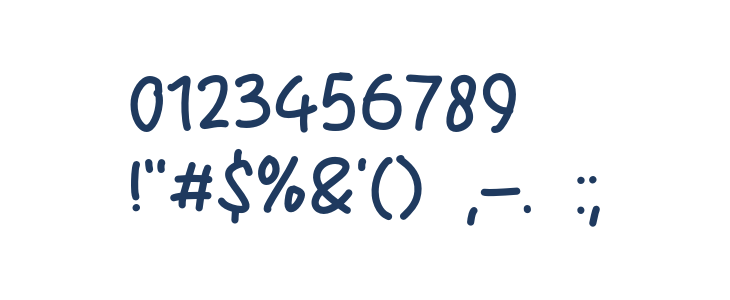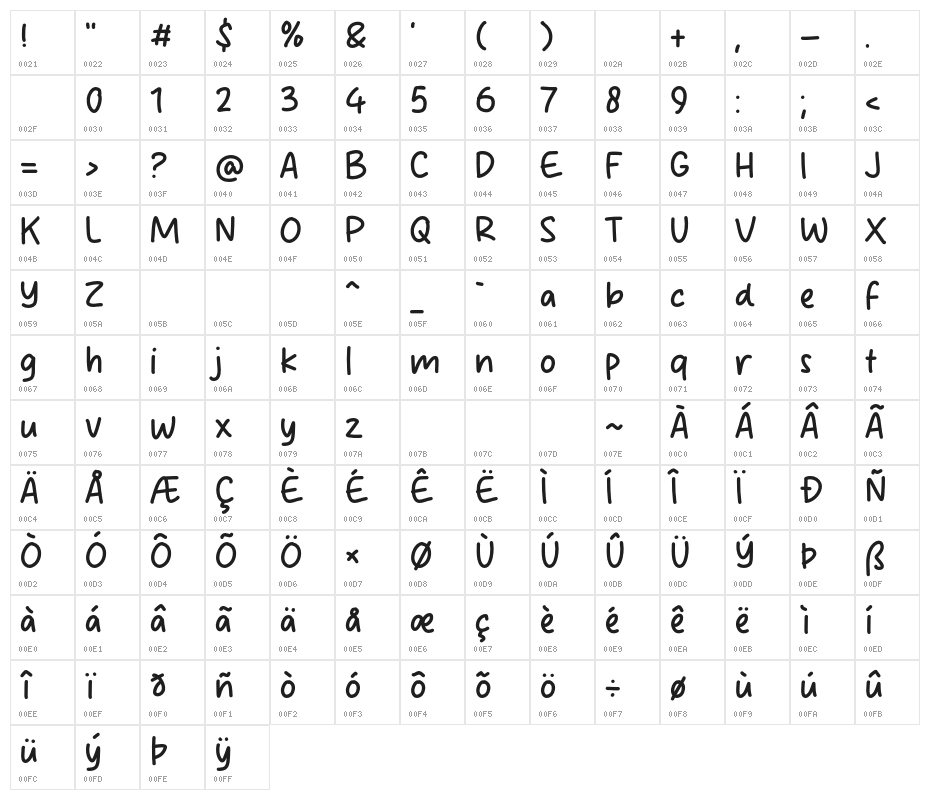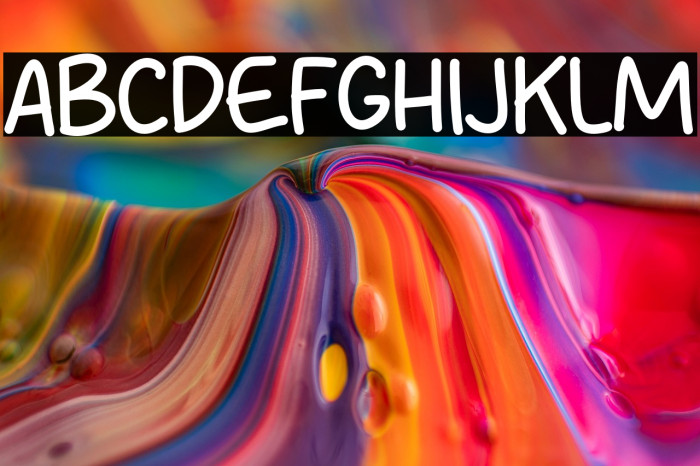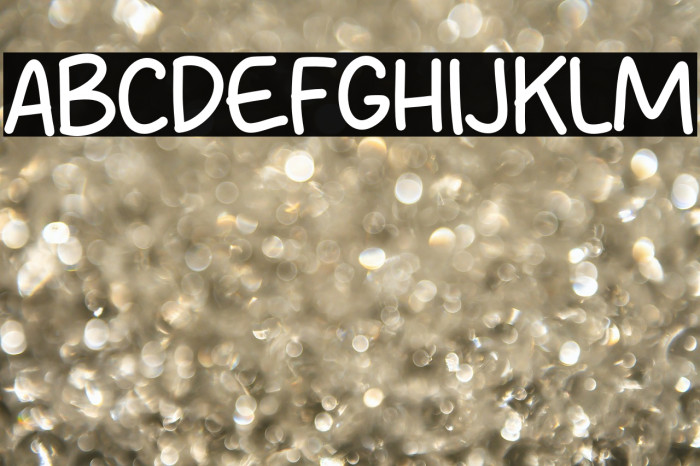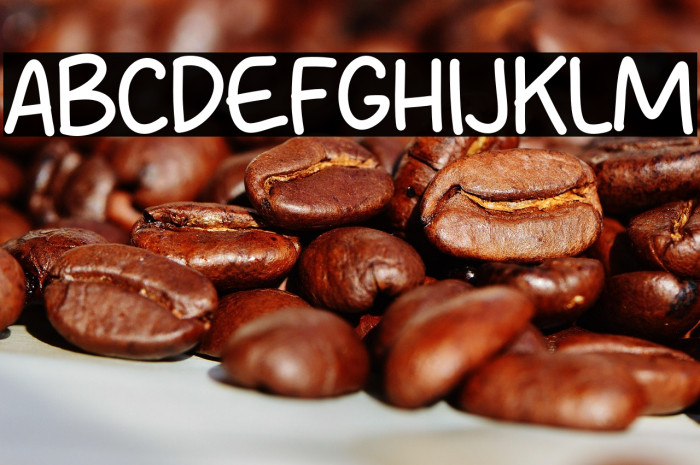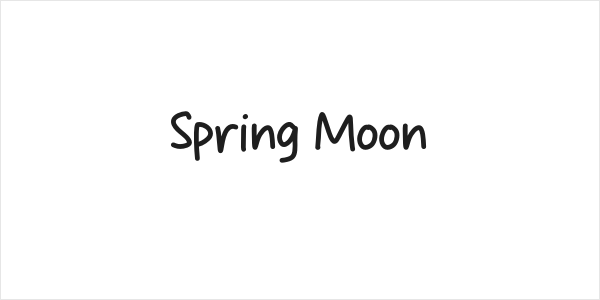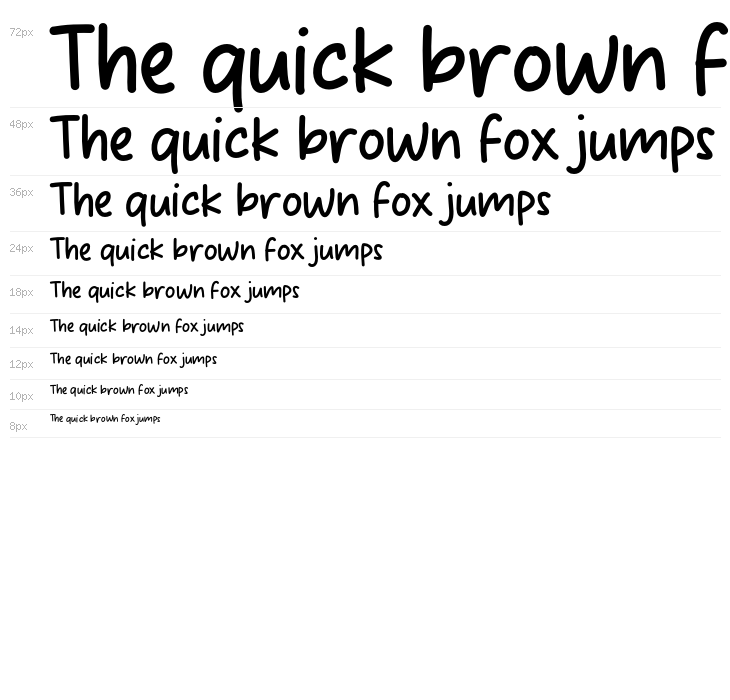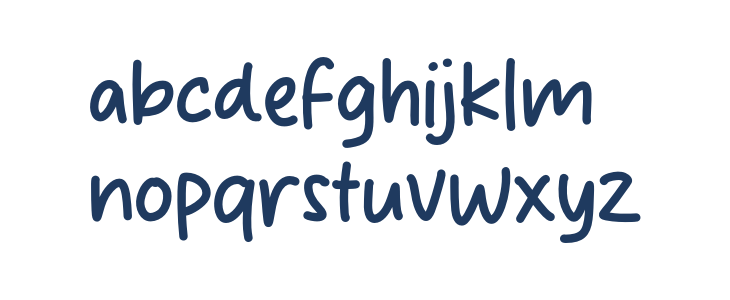
Spring Moon Font
Spring Moon Description
This font features a playful and casual handwritten style, characterized by its smooth curves and slightly irregular strokes that give it a friendly and approachable appearance. The letters are well-rounded with a consistent flow, making it easy to read while maintaining a personal touch. The uppercase and lowercase letters are well-proportioned, and the numerals are clear and distinct. Special characters are integrated seamlessly, enhancing the font's versatility. Its informal style makes it suitable for projects that require a human touch, such as personal invitations, greeting cards, or creative branding.
| Overall Style | Casual |
| Use Case | Headlines, Informal text, Creative projects |
| Proposed Projects | Ideal for personal invitations, greeting cards, creative branding, and informal communication. |